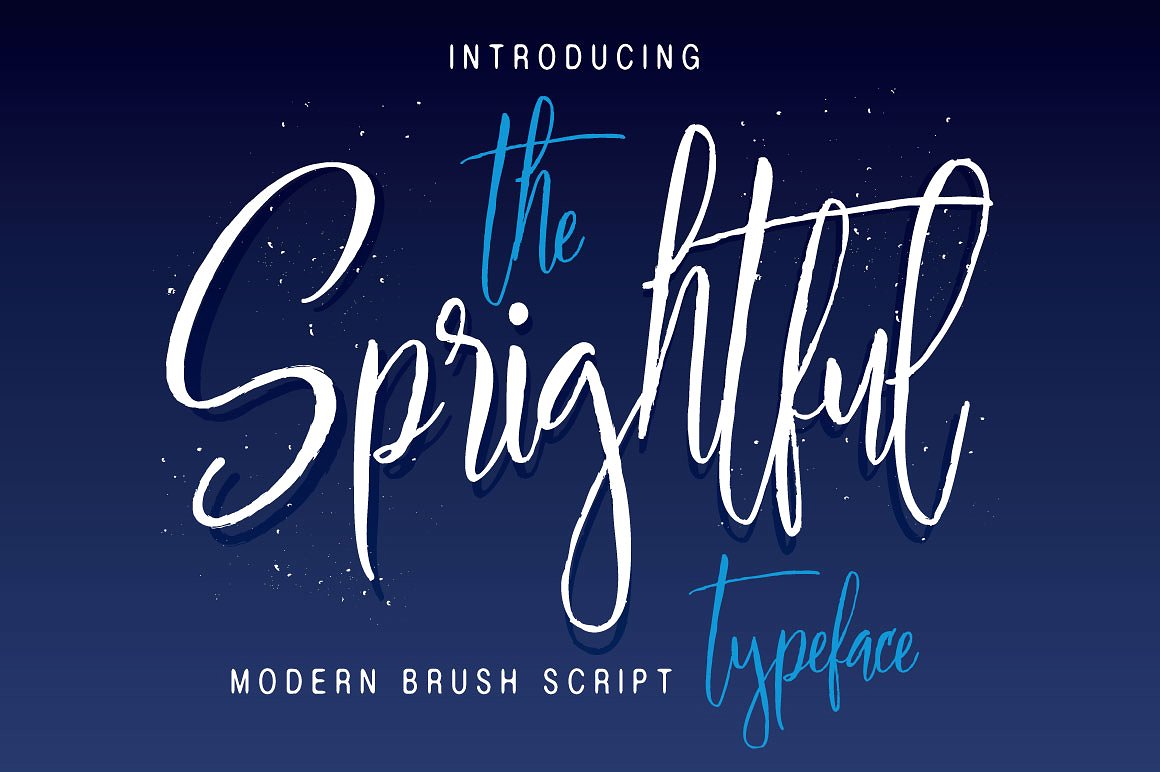
Sprightful Script
Sprightful Script Font
Sprightful Typeface is a beautiful hand Painting script give the natural looks. Alternate character contain with Ligature and more. You can access all those alternate characters by using OpenType savvy programs such as Adobe Illustrator and Adobe InDesign.
Sprightful  Script